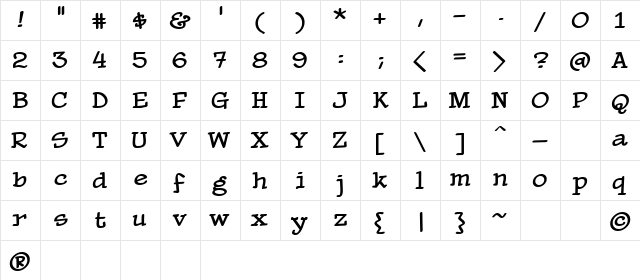
PaperBoy BB Regular
Design Context for PaperBoy BB Typeface
PaperBoy BB is a composed and adaptable typeface that performs quietly and consistently across a wide range of design contexts.
Pro Tip: Use PaperBoy BB in both headline and body roles to test its range before committing to a single application.